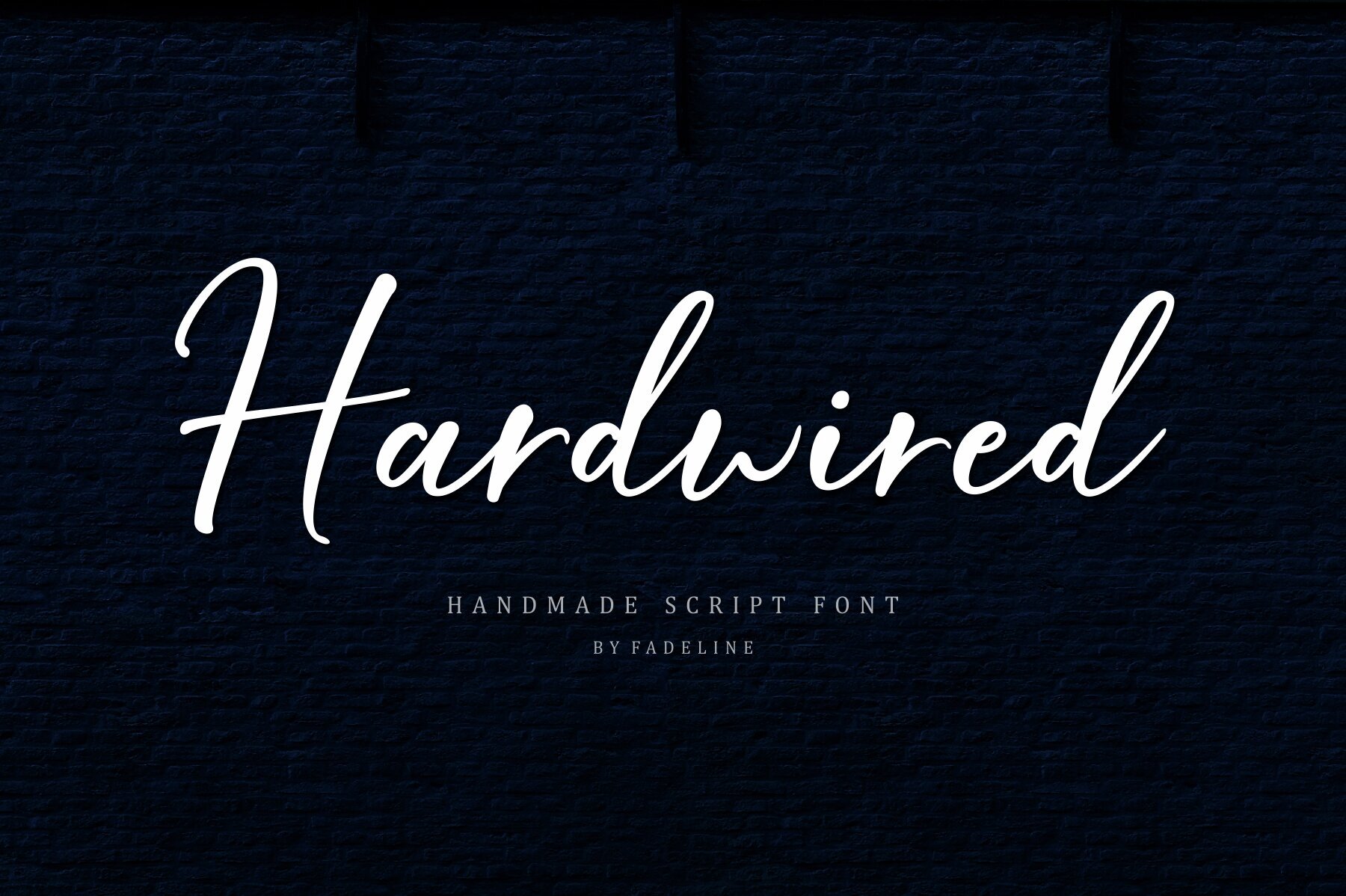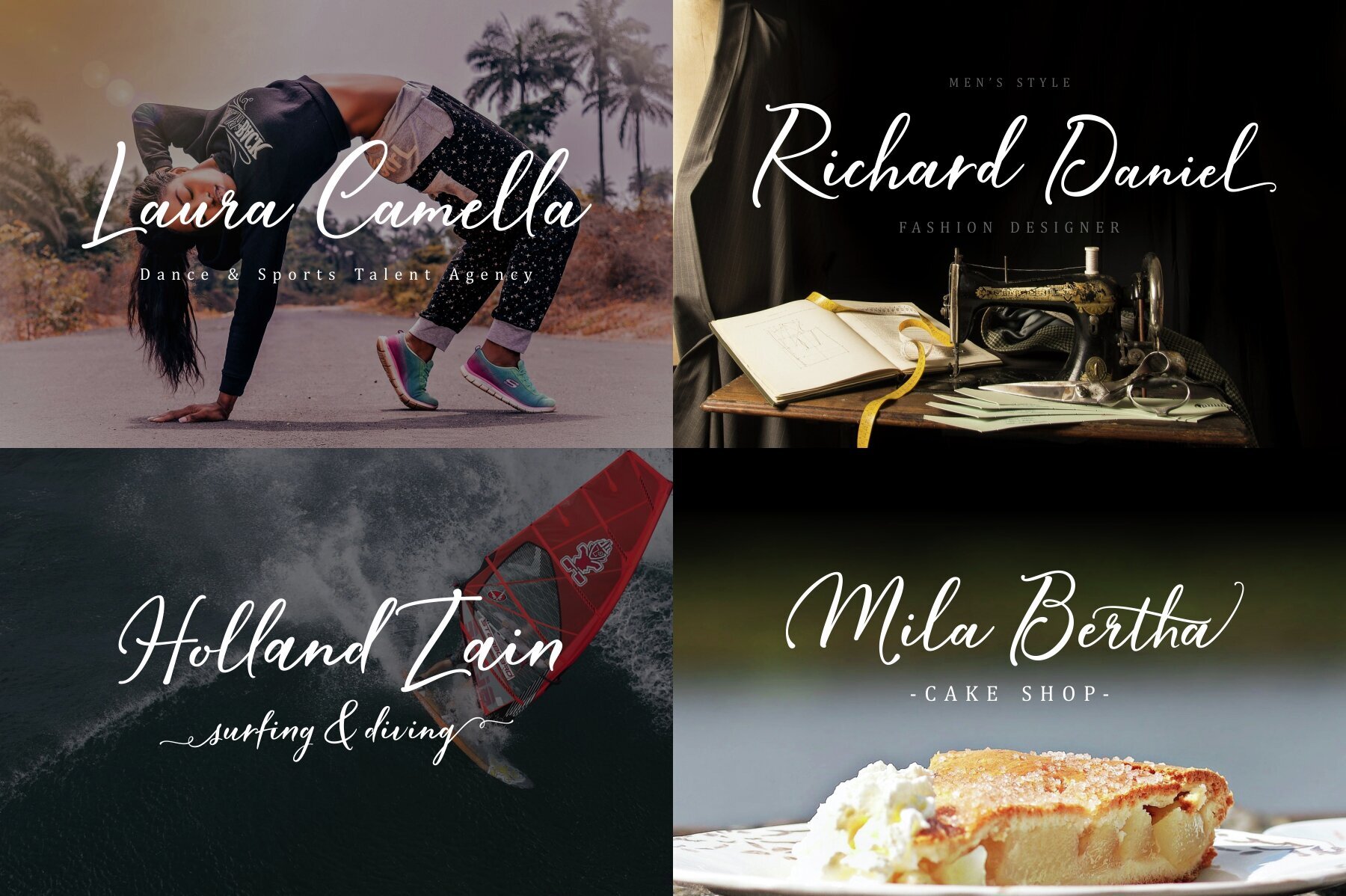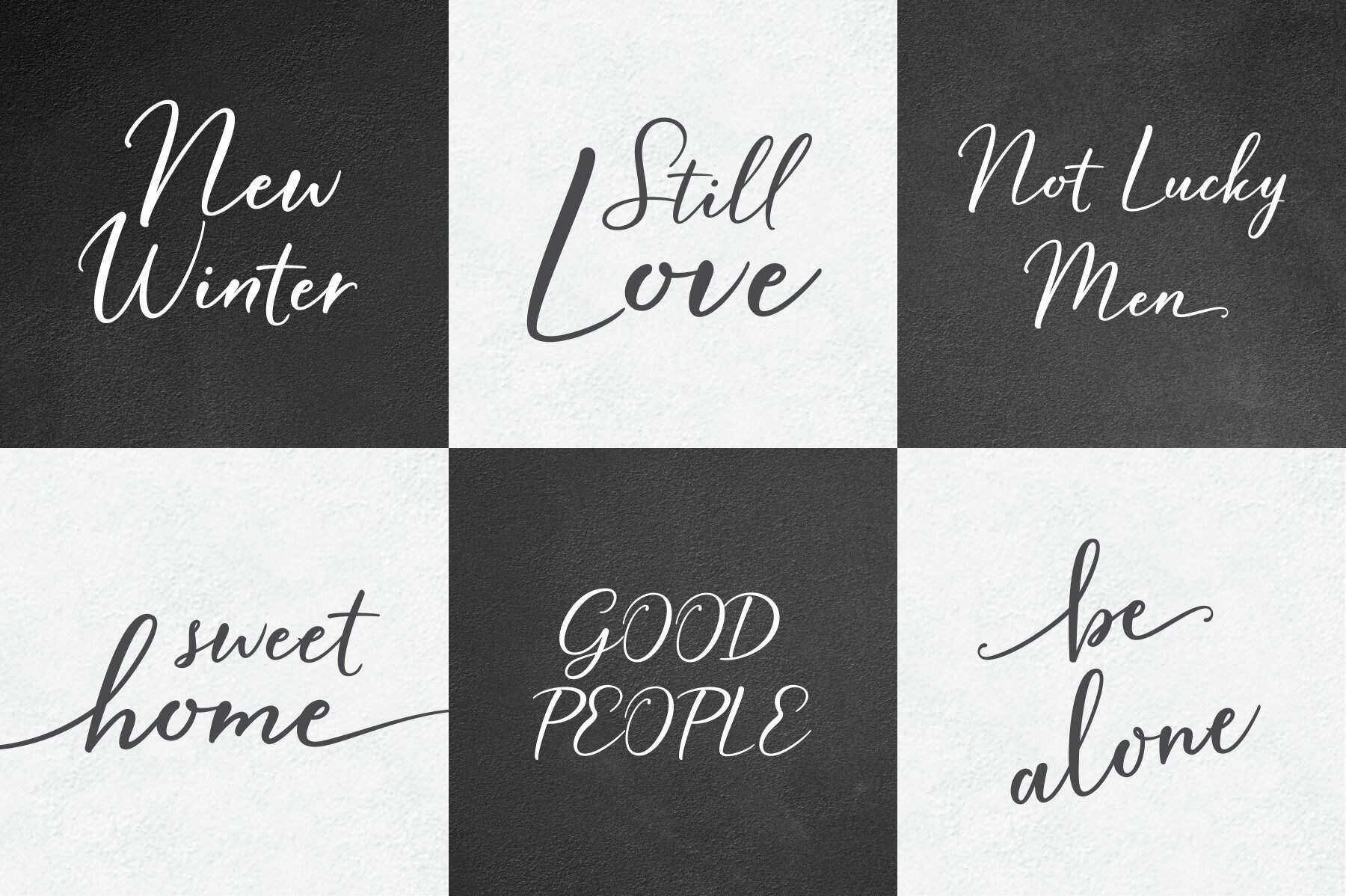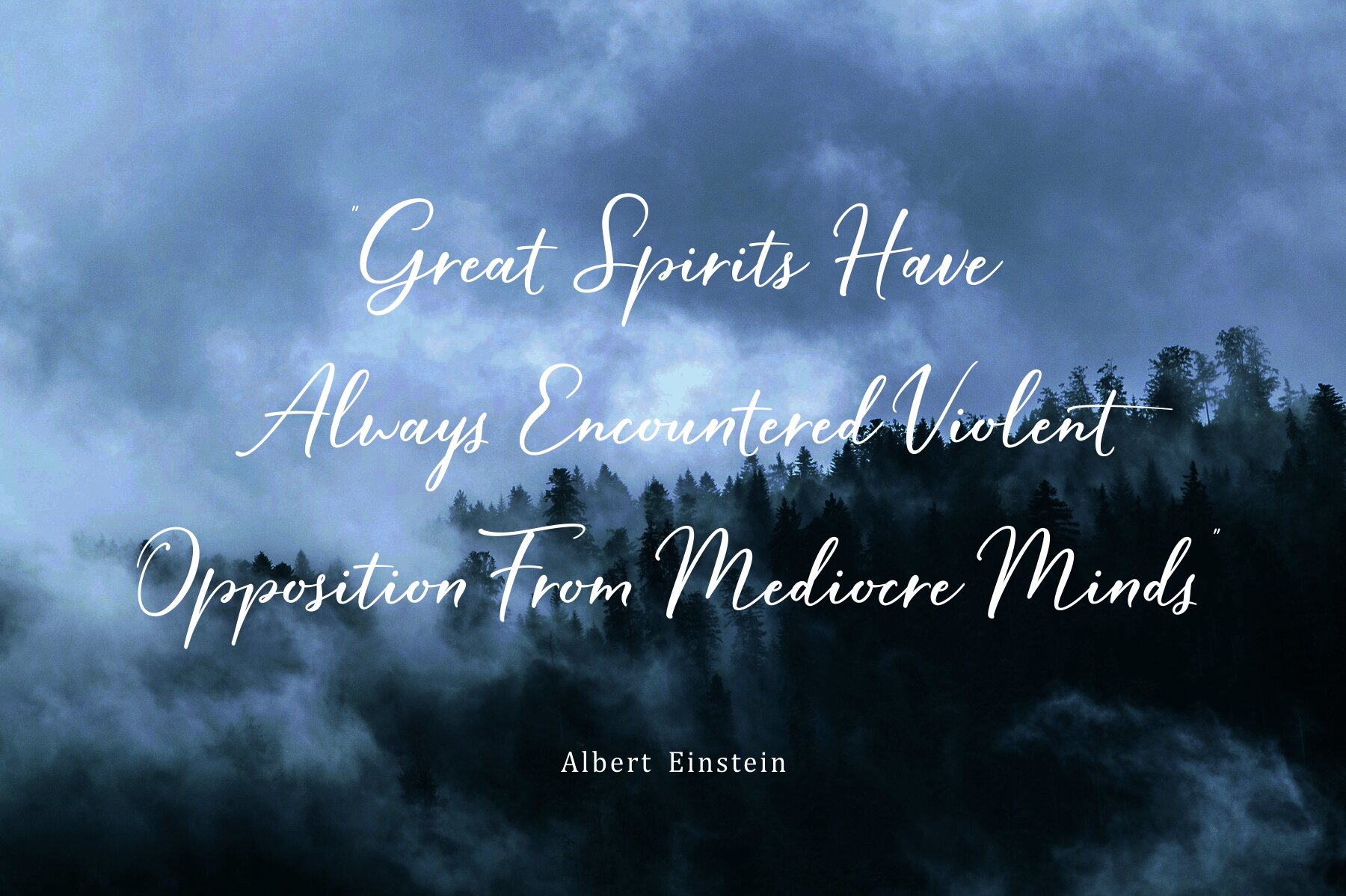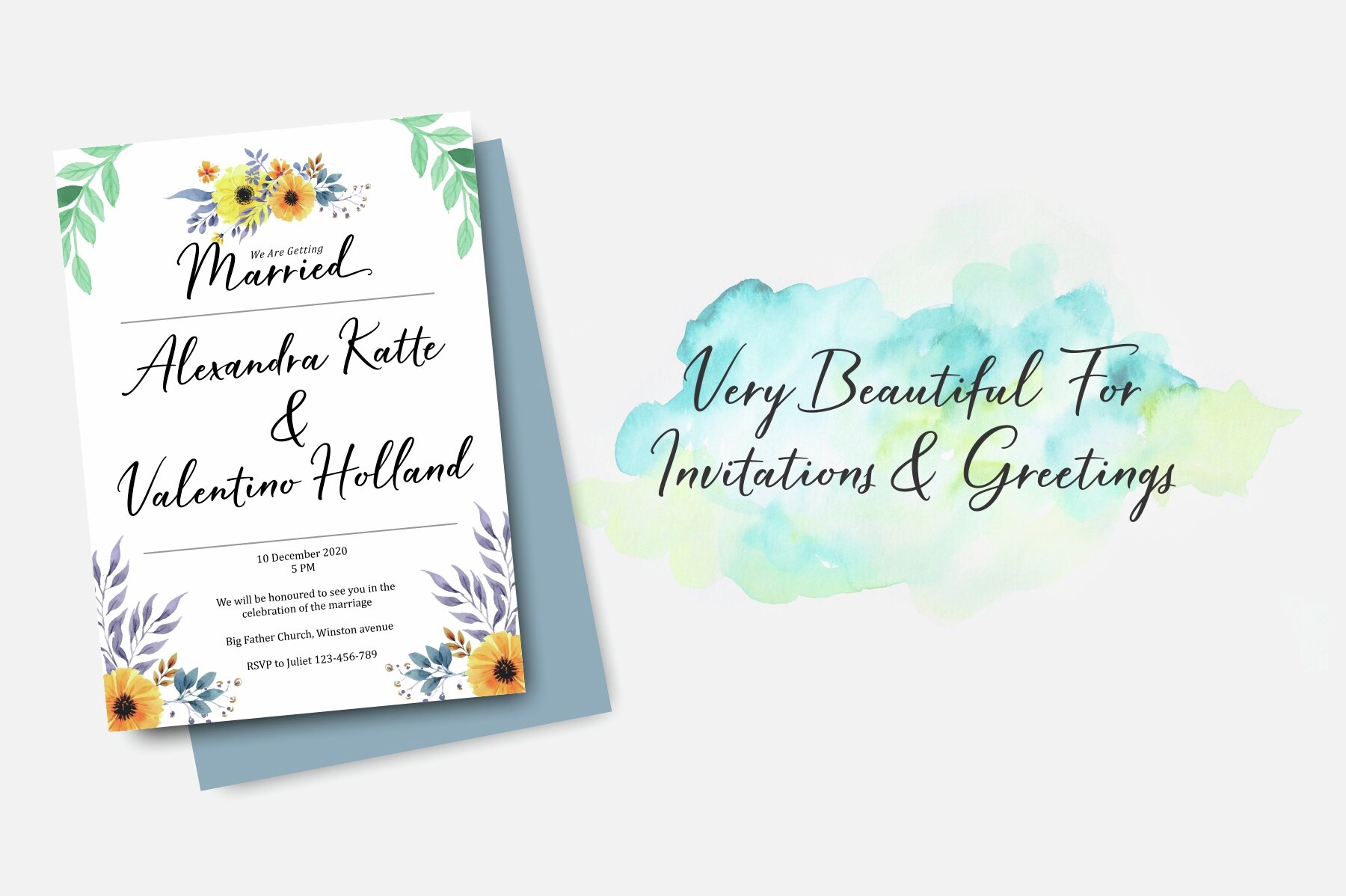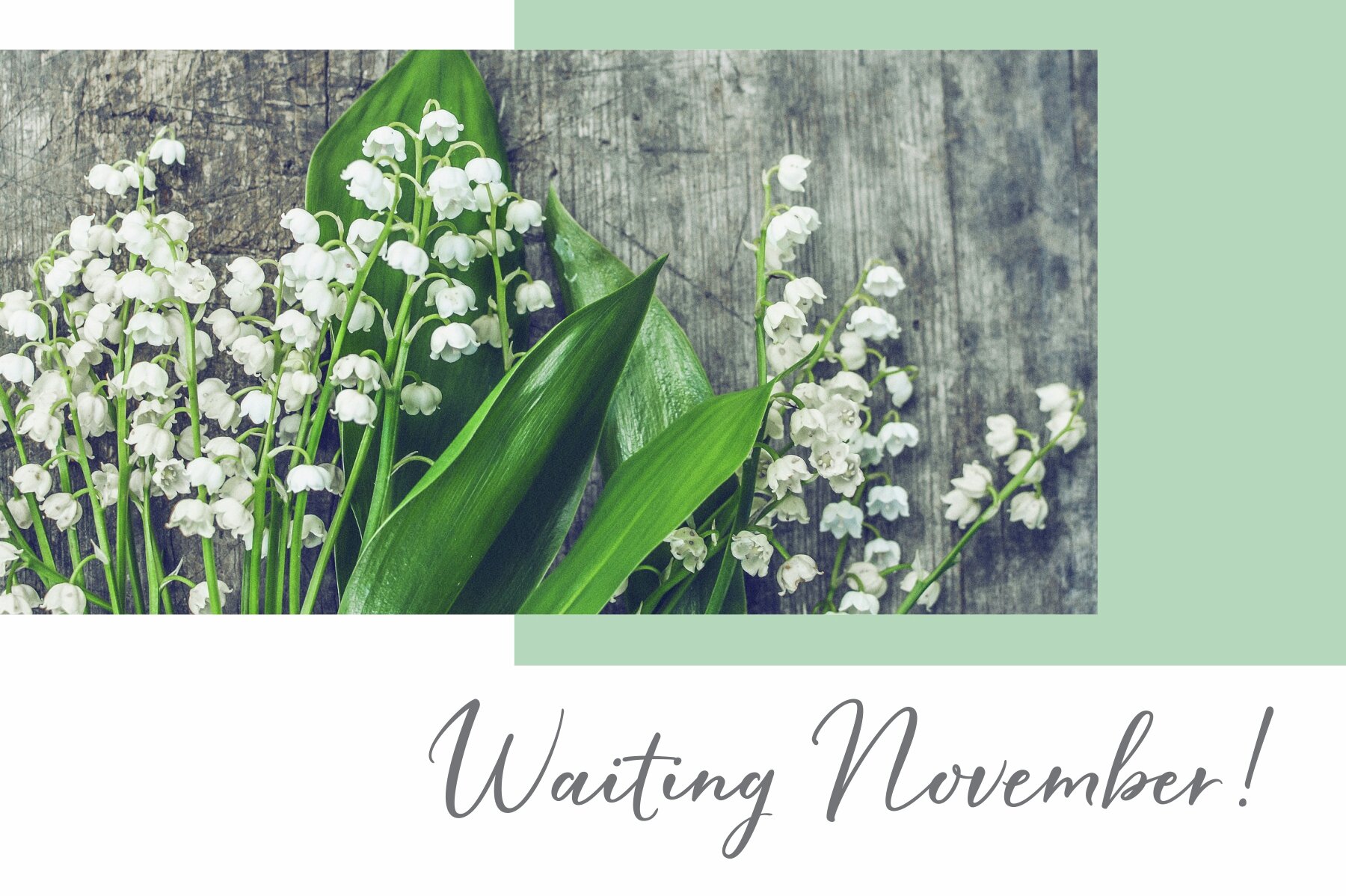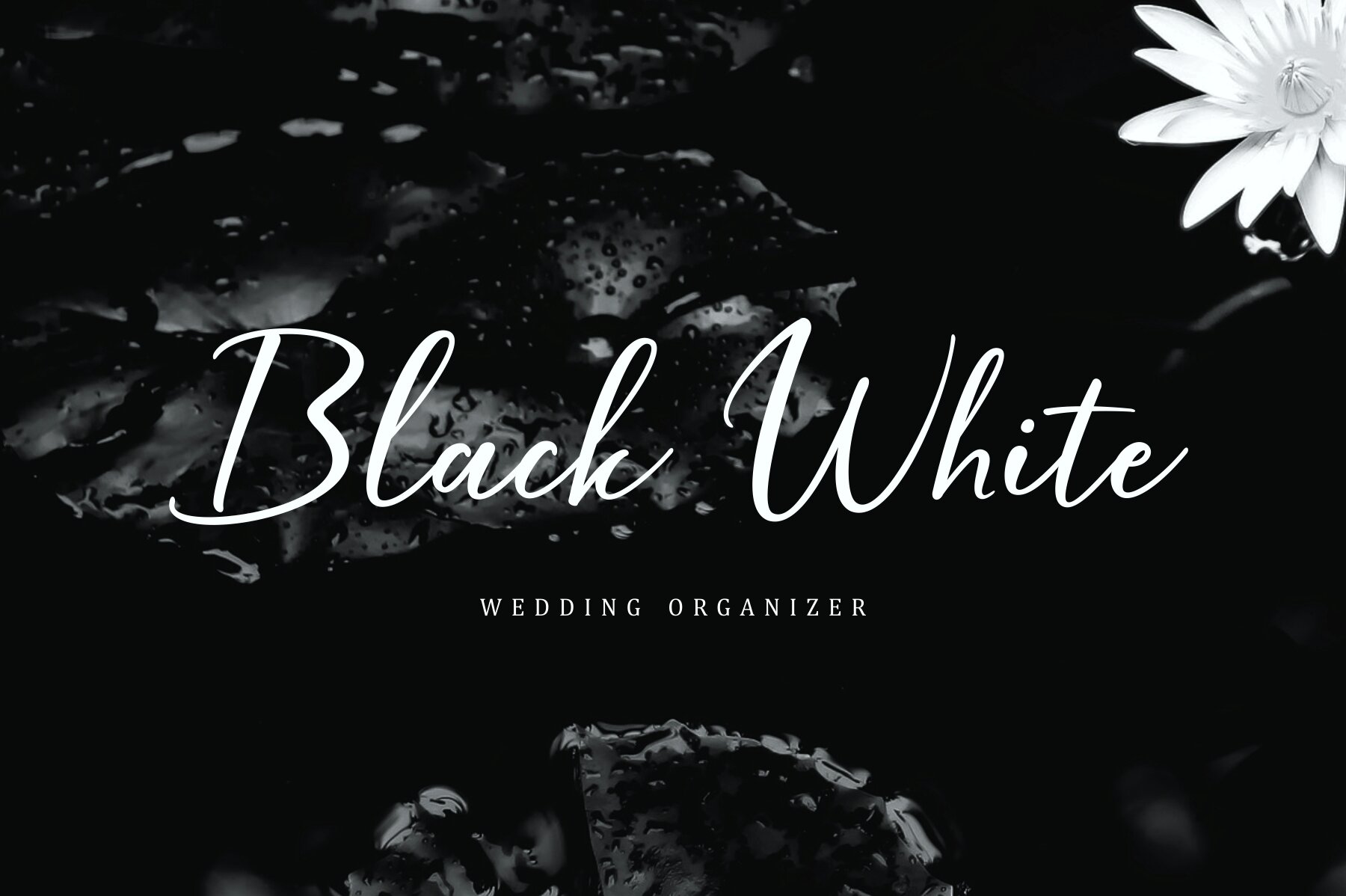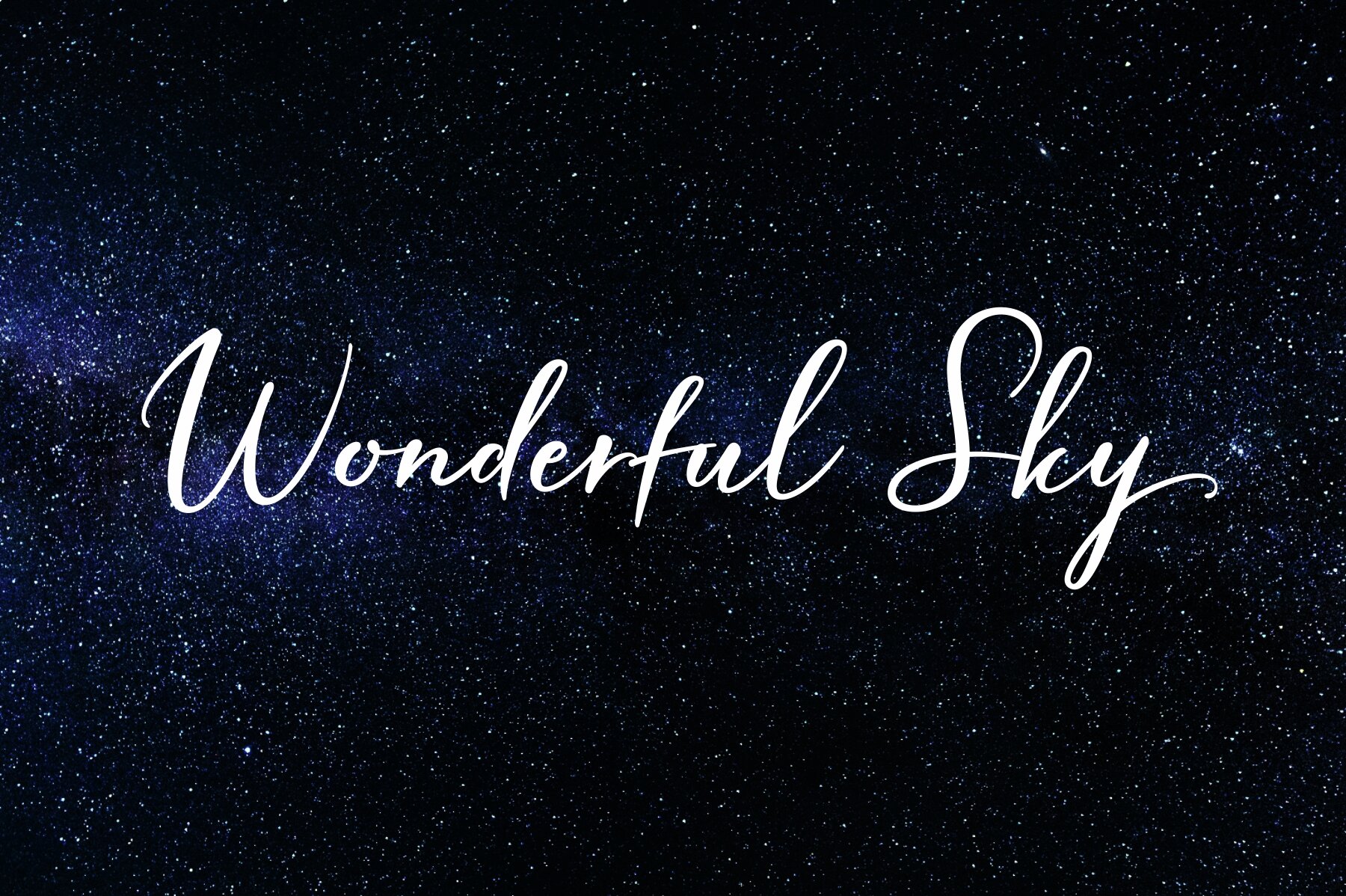
Hardwired Font
Hardwired Script
Discover Hardwired Script, a handmade font by FadeLine Studio, that blends elegant, sweet, and straightforward elements into one unique typeface. Crafted with care, this font offers a natural handwriting look while maintaining a modern touch. Its versatility shines through in various styles—be it a simple, elegant, or bold presentation. Embrace the charm of Hardwired Script to elevate your creative projects with its distinctive and adaptable style. Try it today and transform your ideas into captivating realities.Hardwired Script: Where Elegance Meets Simplicity